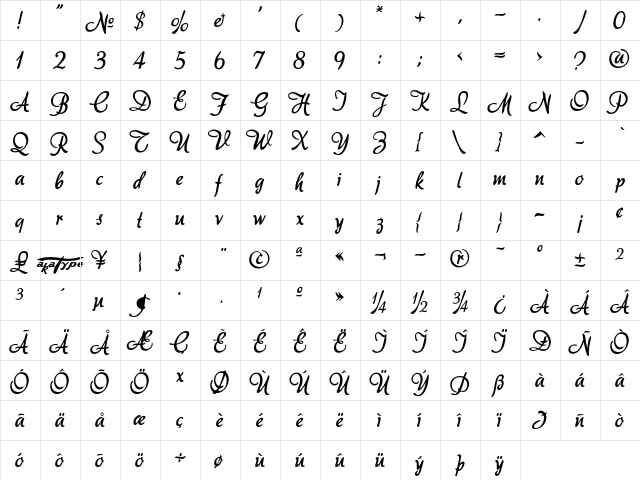
akaDora Regular
| Foundry | akaType |
| Designer | James Milligan |
Design Context for akaDora Typeface
akaDora takes a measured approach to typography — its balanced proportions and neutral character make it a reliable workhorse for both digital and print work.